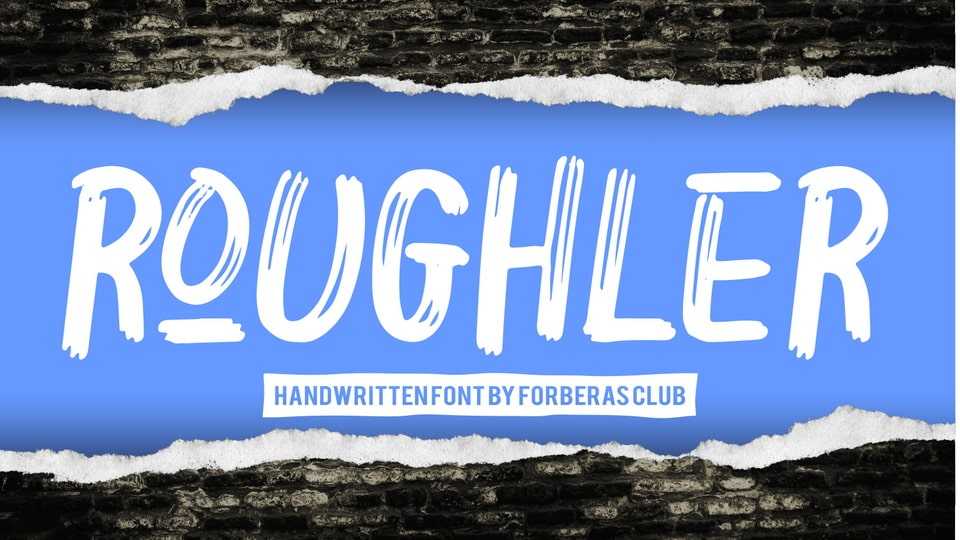
Download Roughler font, a hand lettered typeface inspired by modern and ligature characters. It is especially designed for grunge, bold, street projects.